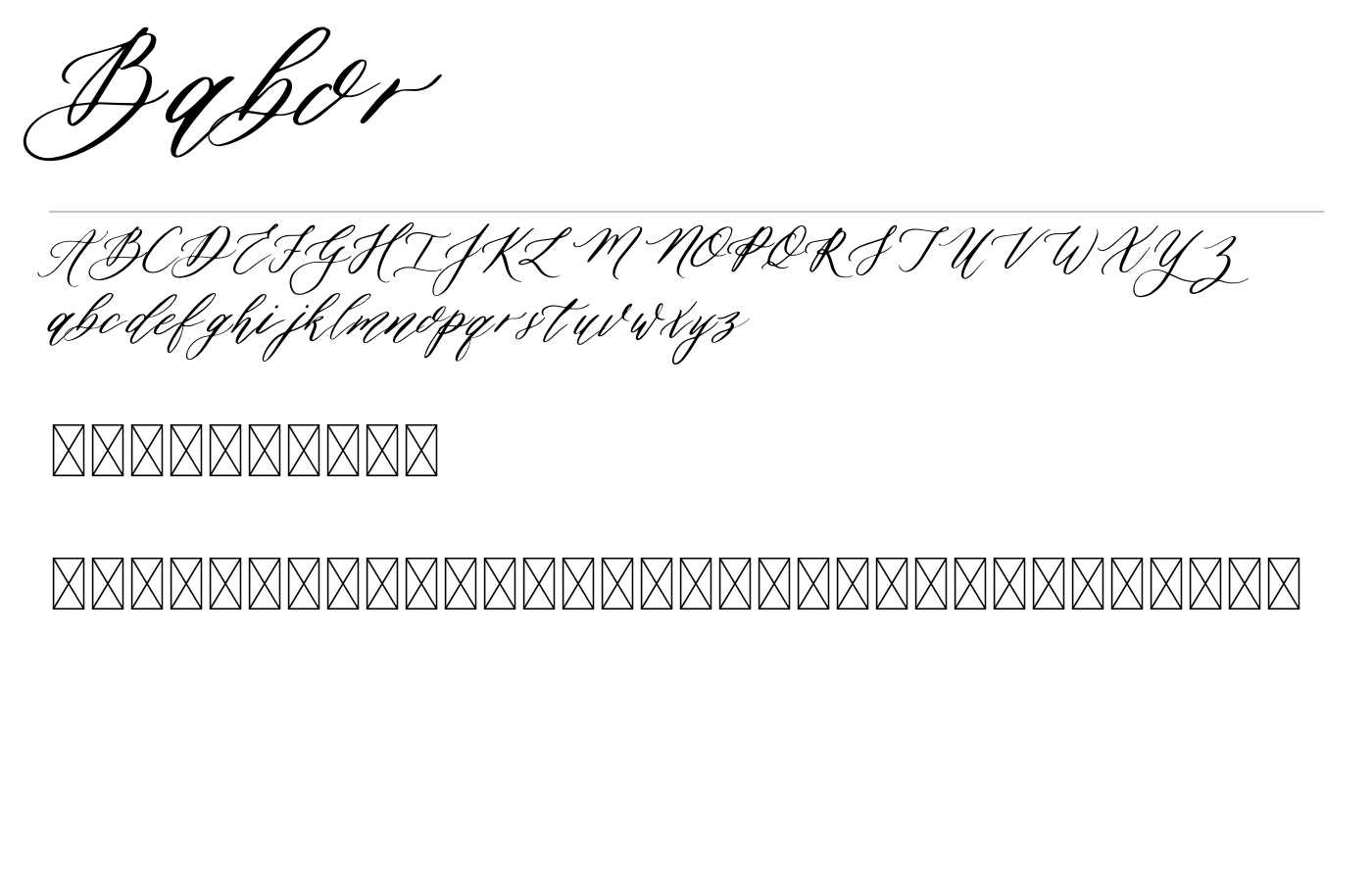
Babor Font is an elegant, flowing script typeface characterized by delicate, high-contrast strokes and graceful, looping letterforms that evoke a classic handwritten style. Its refined curves and sophisticated flair make it ideal for luxury branding, wedding invitations, and any design seeking a touch of timeless beauty and personalization. This font works best in headlines or decorative use, where its intricate details can shine without sacrificing readability.
Babor Font